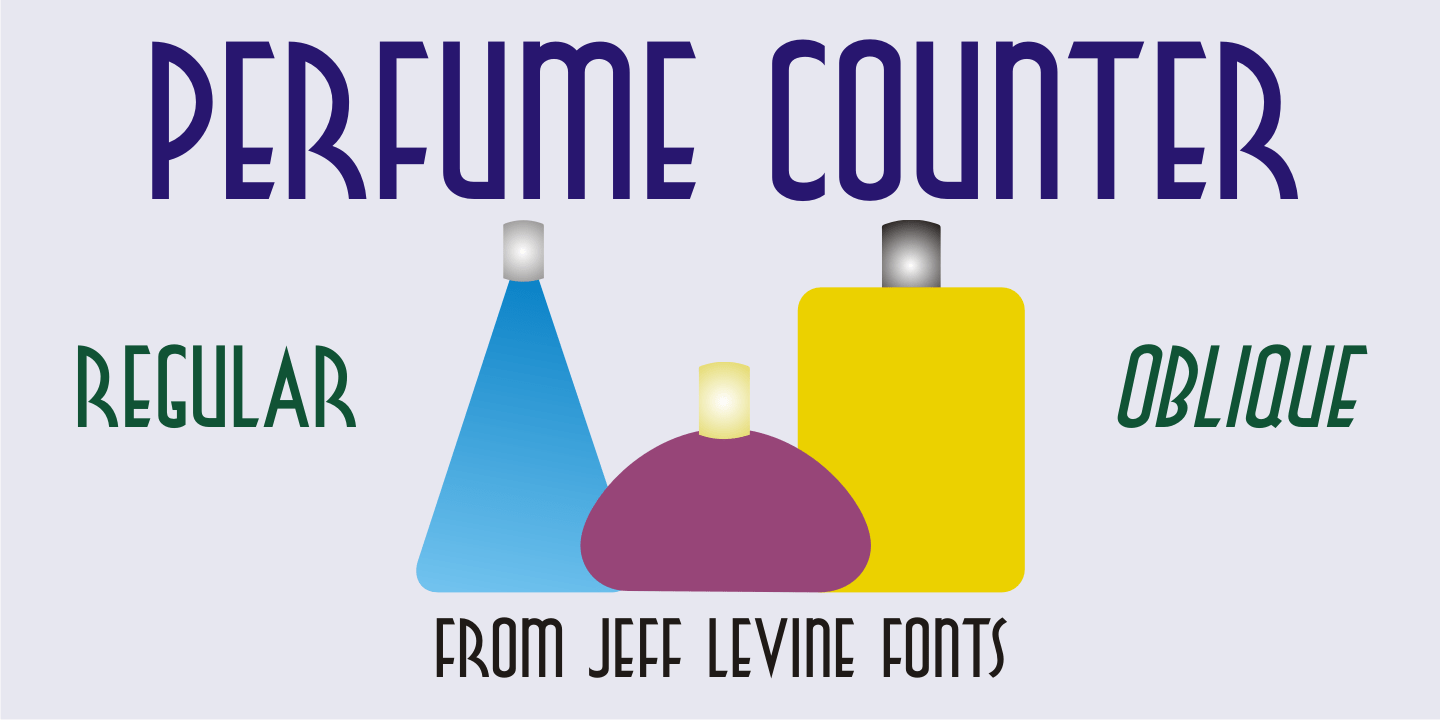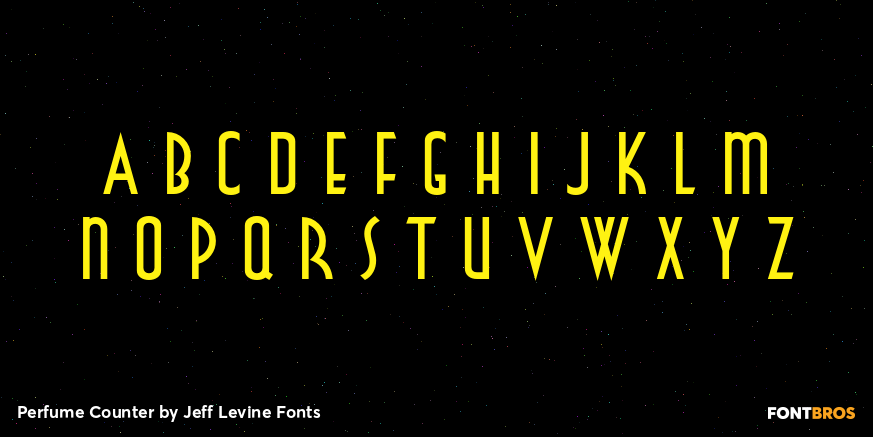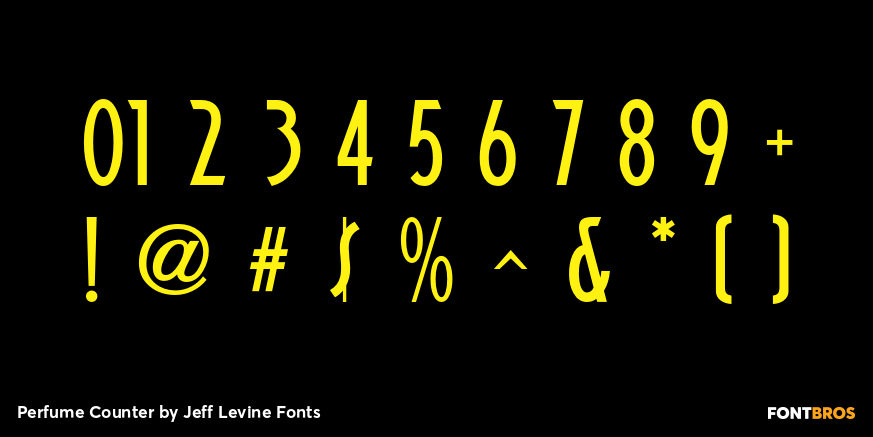
Perfume Counter
Buy NowPerfume Counter JNL was based on the hand lettered song title found on the 1938 sheet music for 'At A Perfume Counter (On the Rue de la Paix)' from Billy Rose's New York revue 'Casa Mañana', and is available in both regular and oblique versions.